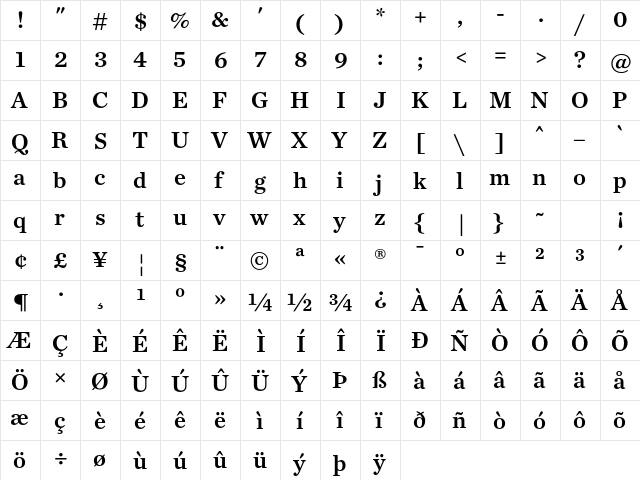
Chronicle Text G1 Semibold
| Foundry | Hoefler & Frere-Jones |
| Designer | Hoefler & Frere-Jones |
Design Context for Chronicle Text G1 Typeface
Chronicle Text G1 offers clean, dependable letterforms without strong stylistic allegiance, making it a practical choice for designers who need flexibility. The heavy weight commands attention and anchors typographic hierarchies.